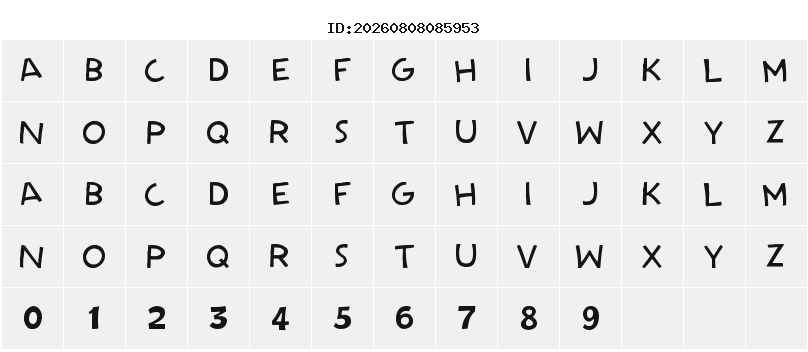
Powerhouse Era.ttf
About Powerhouse Era.ttf
Powerhouse Era.ttf is a modern, elegant sans-serif font designed for ultimate readability and visual harmony. Perfect for branding, headlines, web design, and print materials.